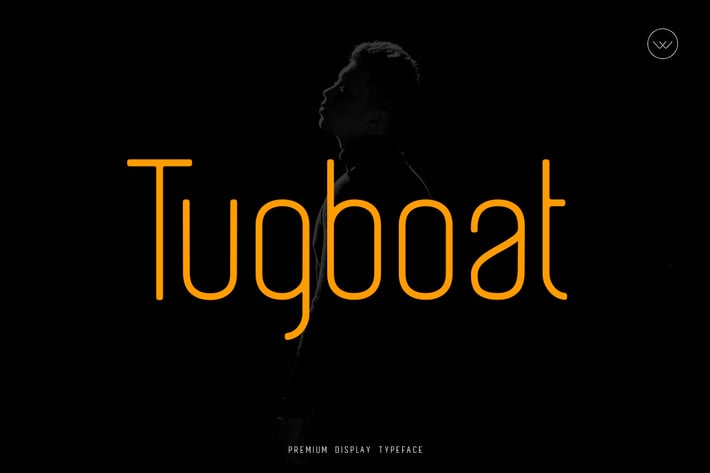
Tugboat Display Typeface
Introducing our brand new Display Typeface Tugboat - Display. This beautiful and Creative Font suitable for Film Posters, headlines, Block letter, Subheading, Logo Designs, Big Banners Decorative Typography and Web Designs.